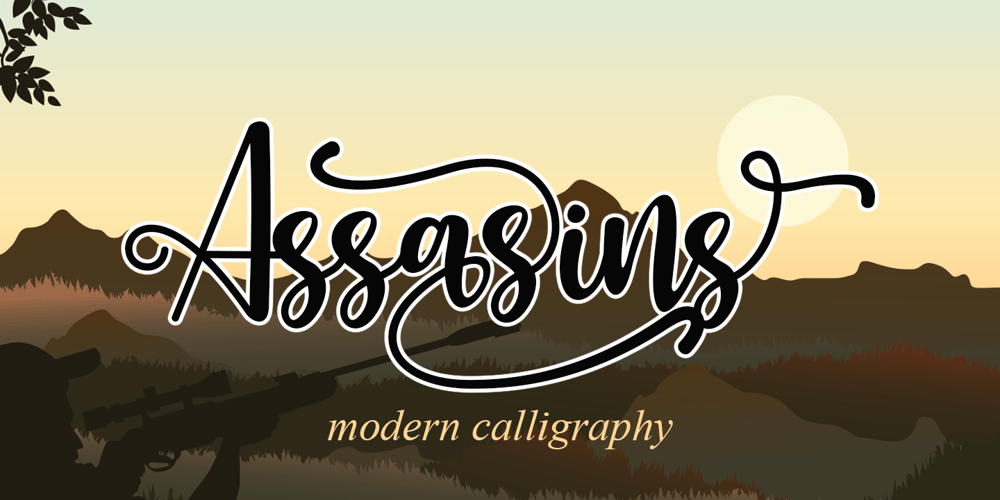
Assasins Font Family was designed by Arief Tri Sulistiyono and published by Supersemarletter. Assasins contains 1 styles and family package options. Assasins is a beautiful handwritten font, created with the help of a joyful brush pen. It looks lovely on invitations, thank you cards, quotes, greeting cards, logos and every other design which needs a romantic, trendy touch. This font is PUA encoded which means you can access all of the glyphs and swashes with ease!Font Features :• Regular version• Character set A-Z in uppercase and lowercase• Ligatures in Lowercase and special• Alternates option• Numerals & Punctuation• Accented Characters• Multiple Languages SupportedRecommended to use in Adobe Illustrator or Adobe Photoshop with opentype feature.If you have questions, just send me a message and I’m glad to help.Best Regards,Supersemar Letter